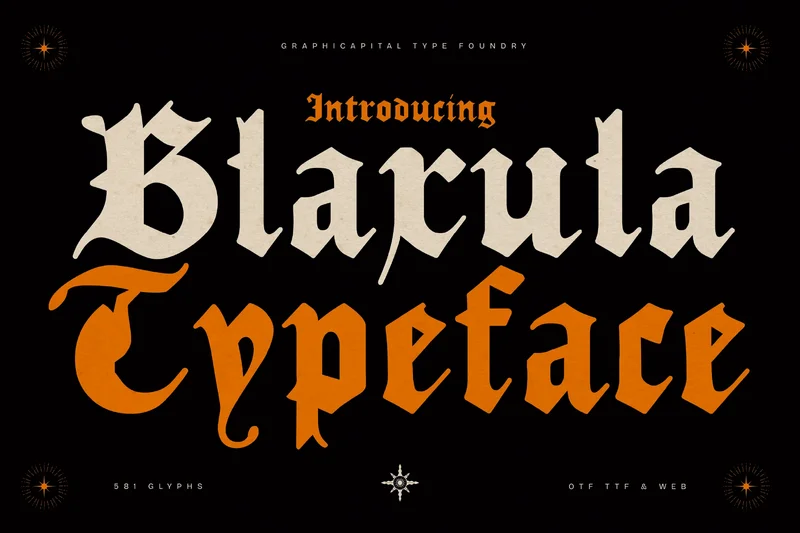
Blaxula
Blaxula is a bold decorative blackletter font with Gothic calligraphic traits—sharp angles, pointed serifs, and unique curves. A great choice for posters, logos, and branding that require a mysterious, edgy look.
Ideal for branding, posters, headlines, packaging, album art, game visuals, and promotional designs. It adds personality to any creative project and helps your message stand out effortlessly.
by Graphicapital